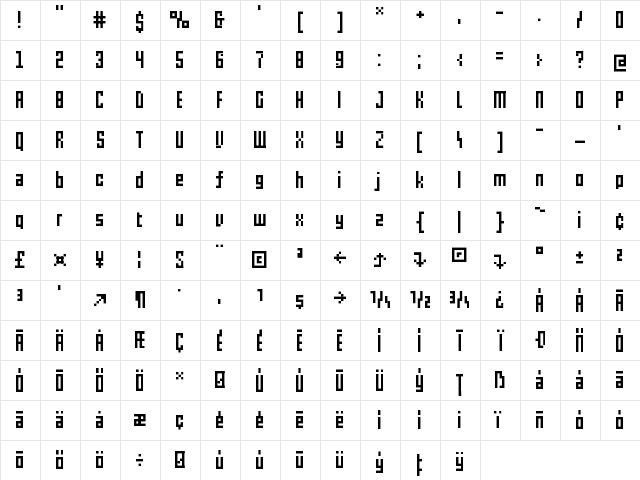
pxl Regular
| Foundry | Elvis Mehmedovic |
| Designer | Elvis Mehmedovic |
Design Context for pxl Typeface
pxl offers clean, dependable letterforms without strong stylistic allegiance, making it a practical choice for designers who need flexibility.